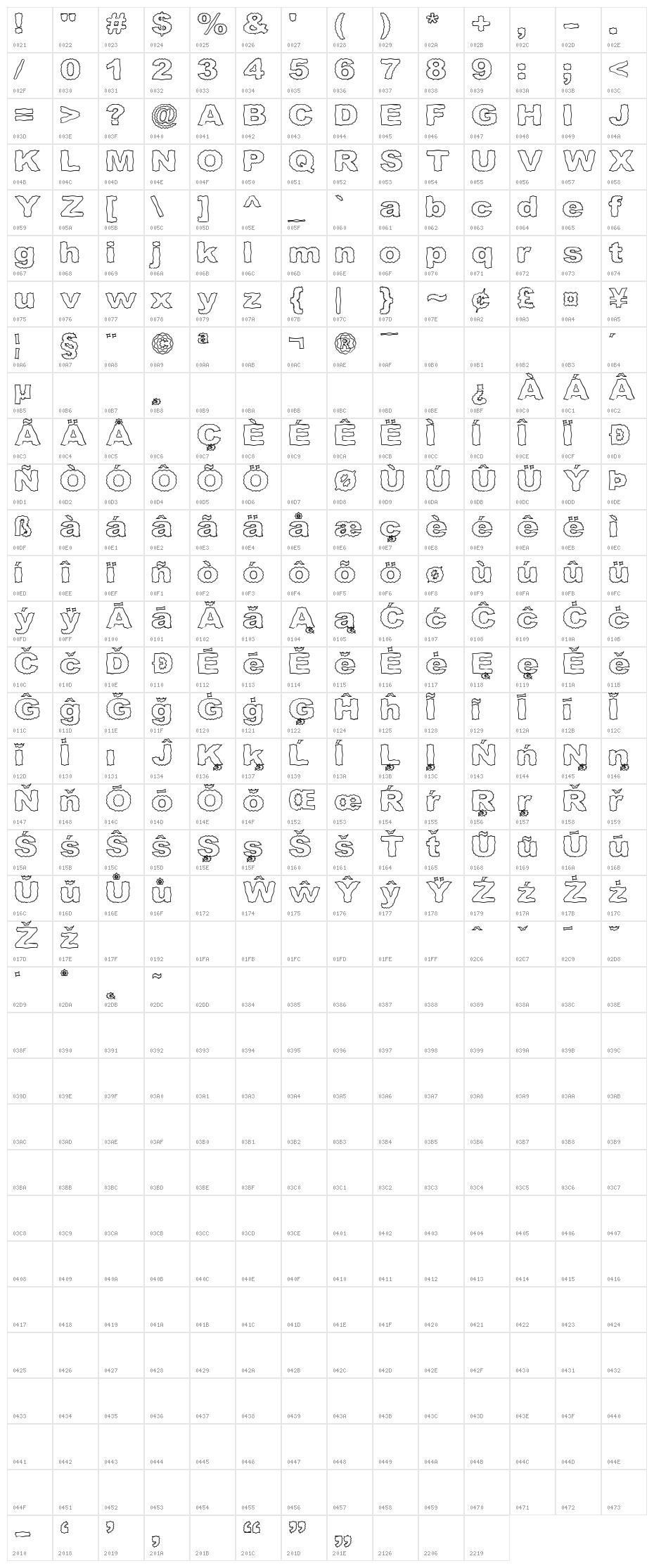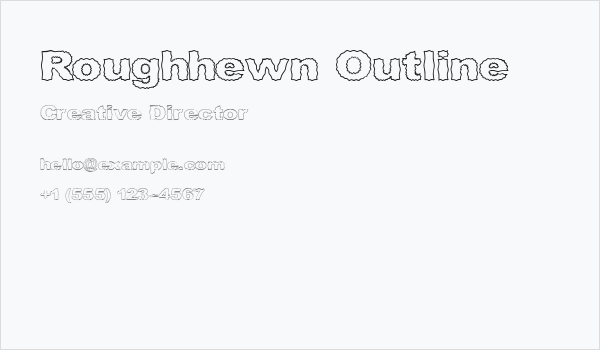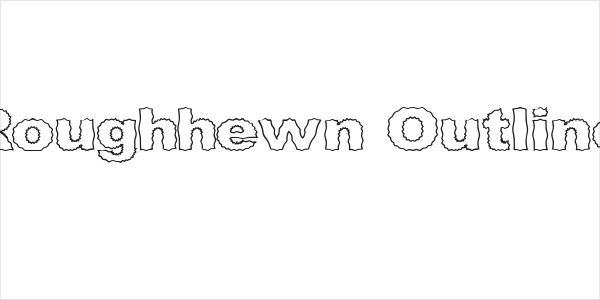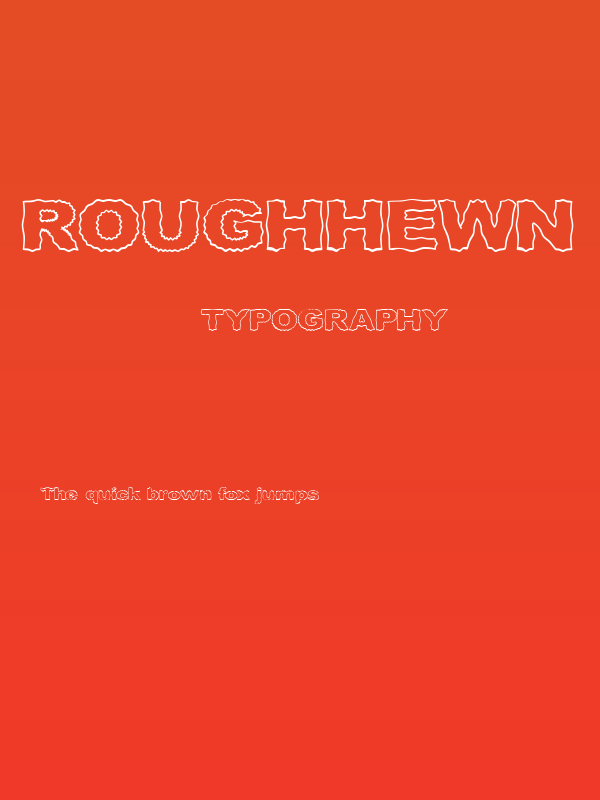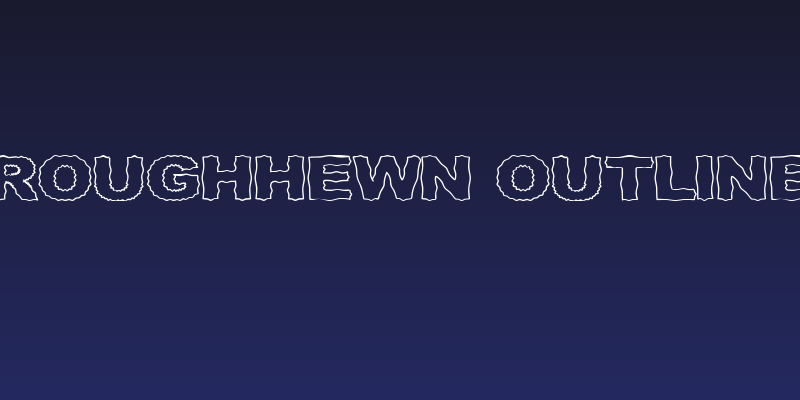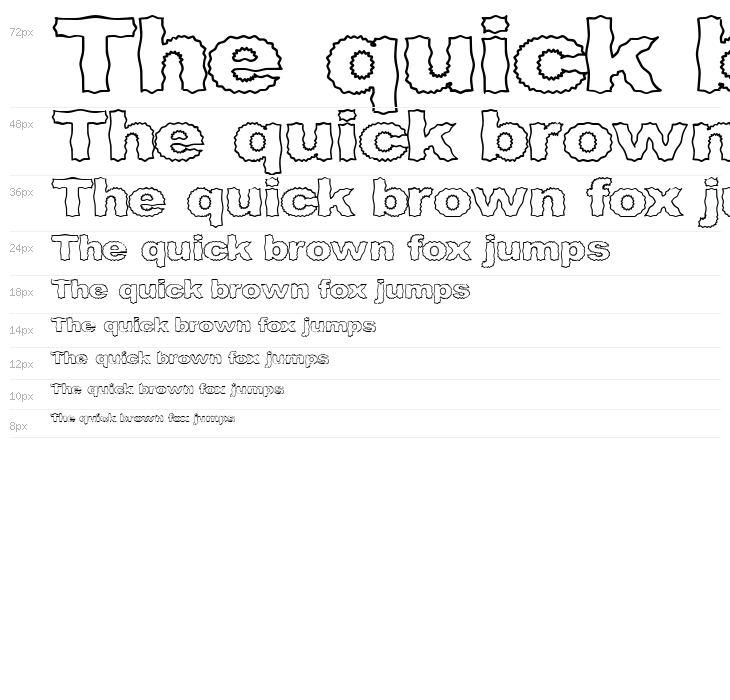
Roughhewn Outline Font
Roughhewn Outline Description
This font features a unique outline style with a rough, hand-drawn appearance. Each character is defined by a bold, uneven contour that gives it a rugged and playful look. The uppercase and lowercase letters maintain a consistent style, with the uppercase being slightly larger and more pronounced. Numbers and special characters follow the same design, ensuring a cohesive appearance across all glyphs. The font's irregular edges and whimsical design make it stand out, adding a touch of creativity and informality to any project.
| Proposed Projects | Ideal for children's books, playful branding, posters, and creative design projects that require a whimsical touch. |